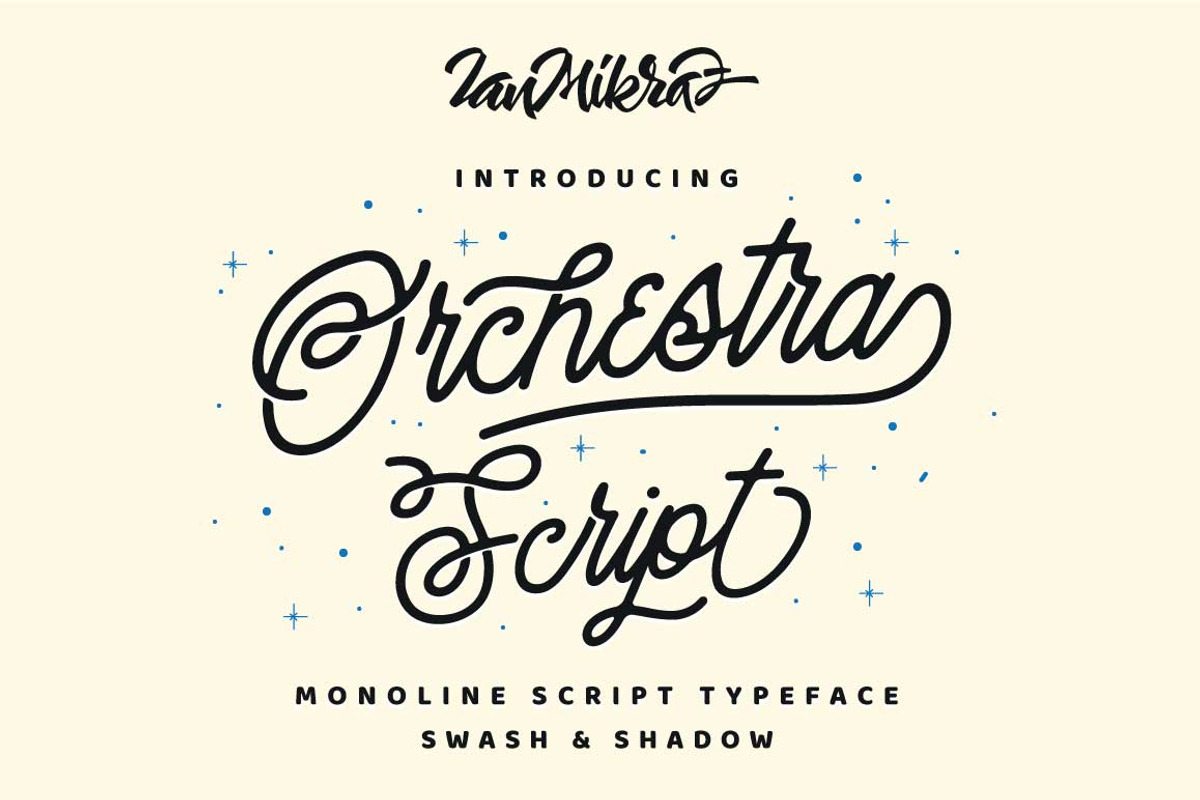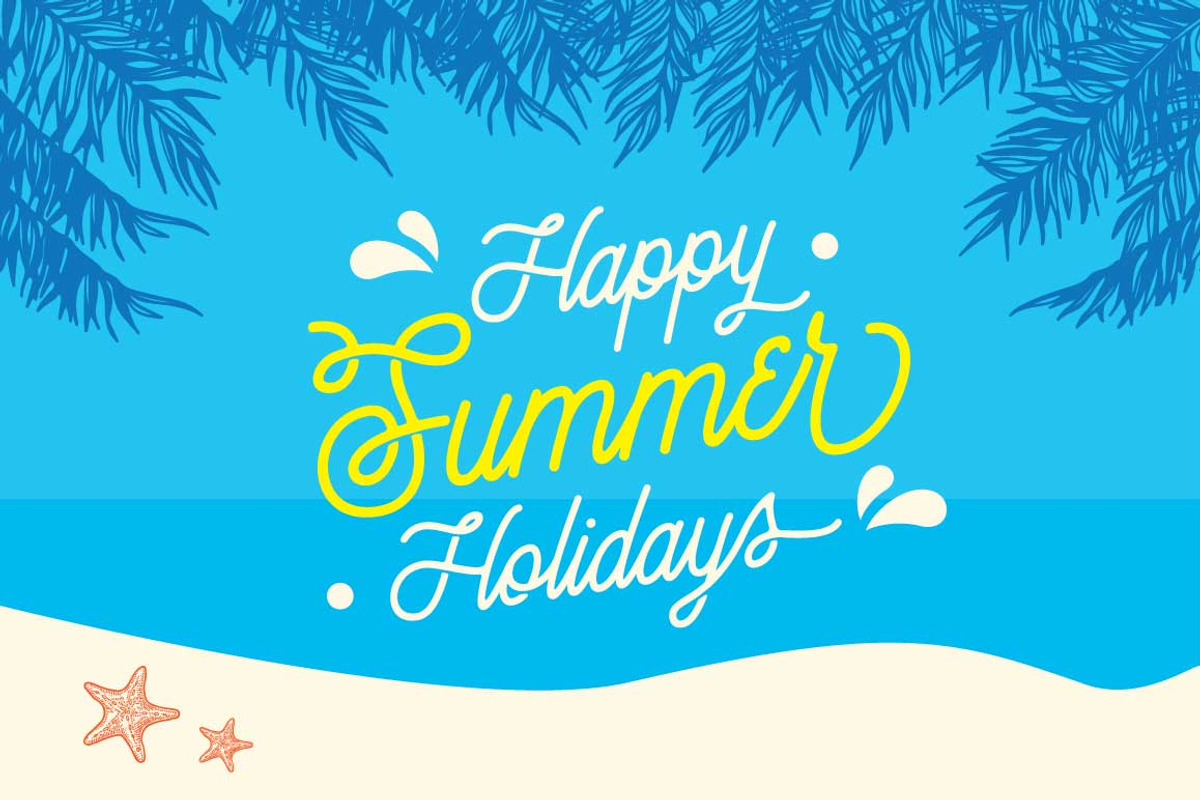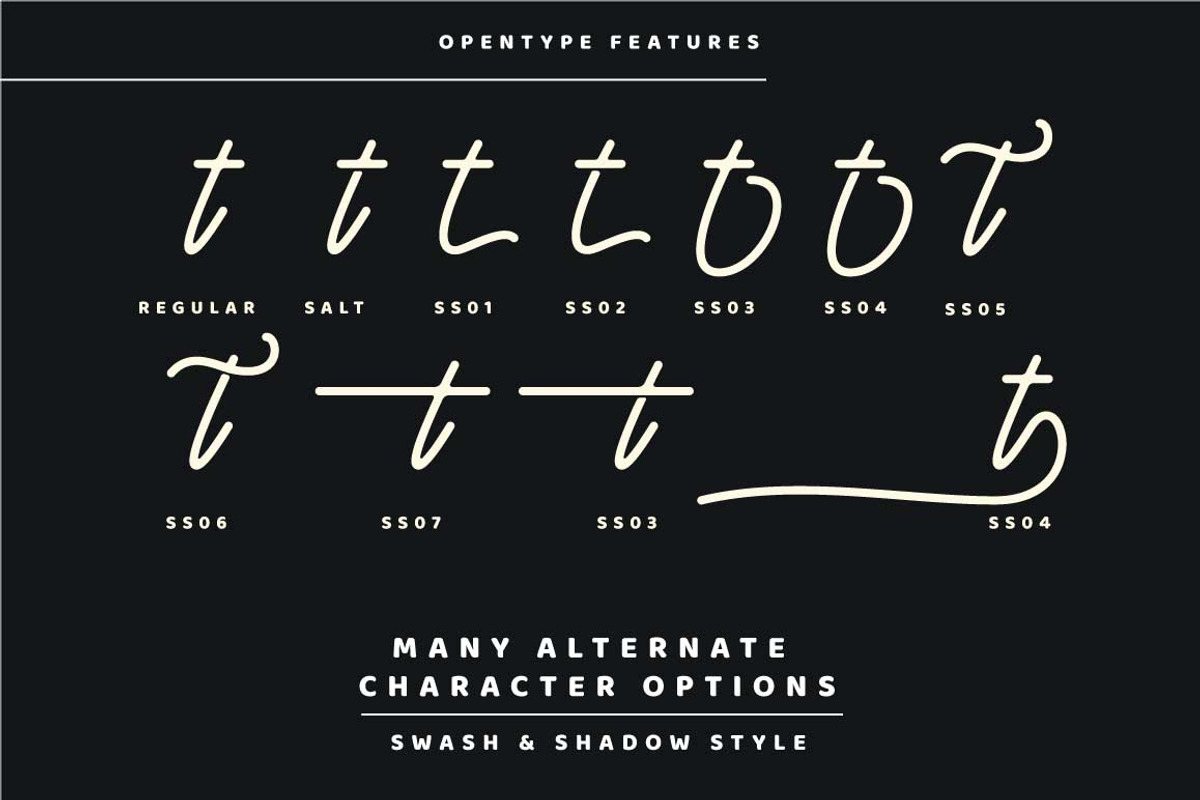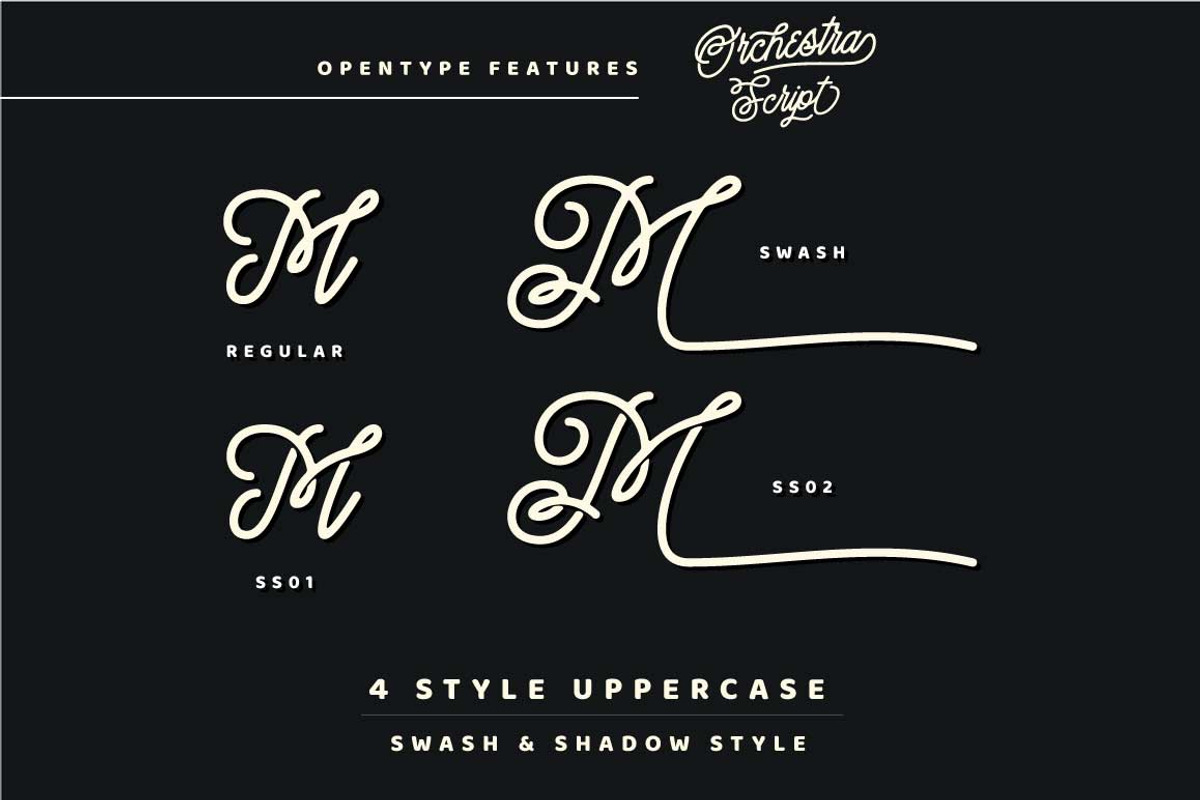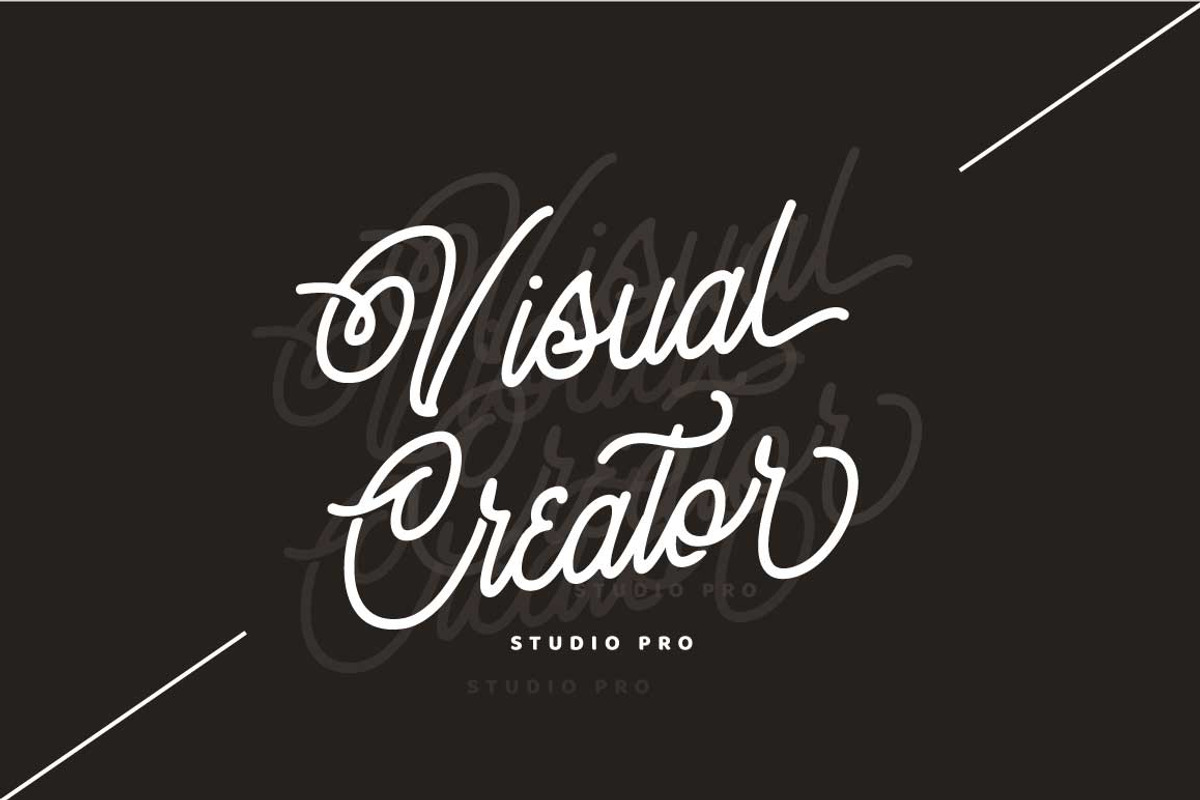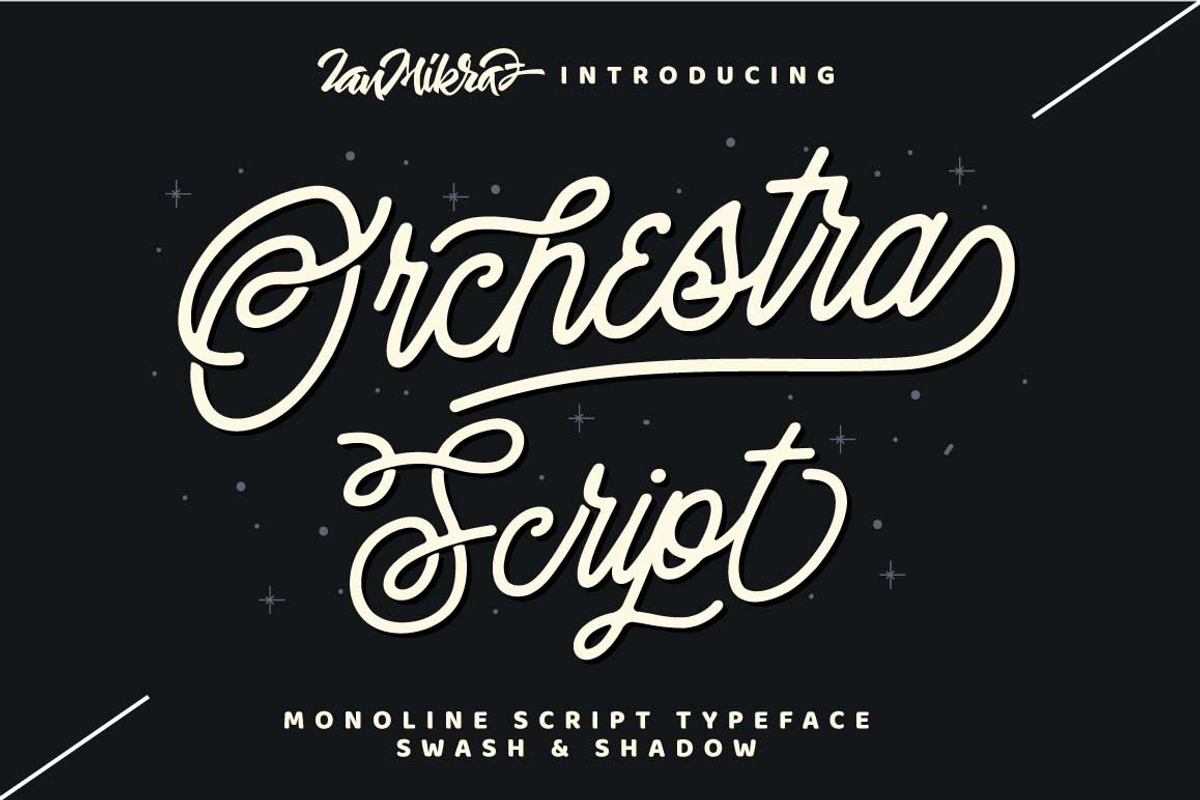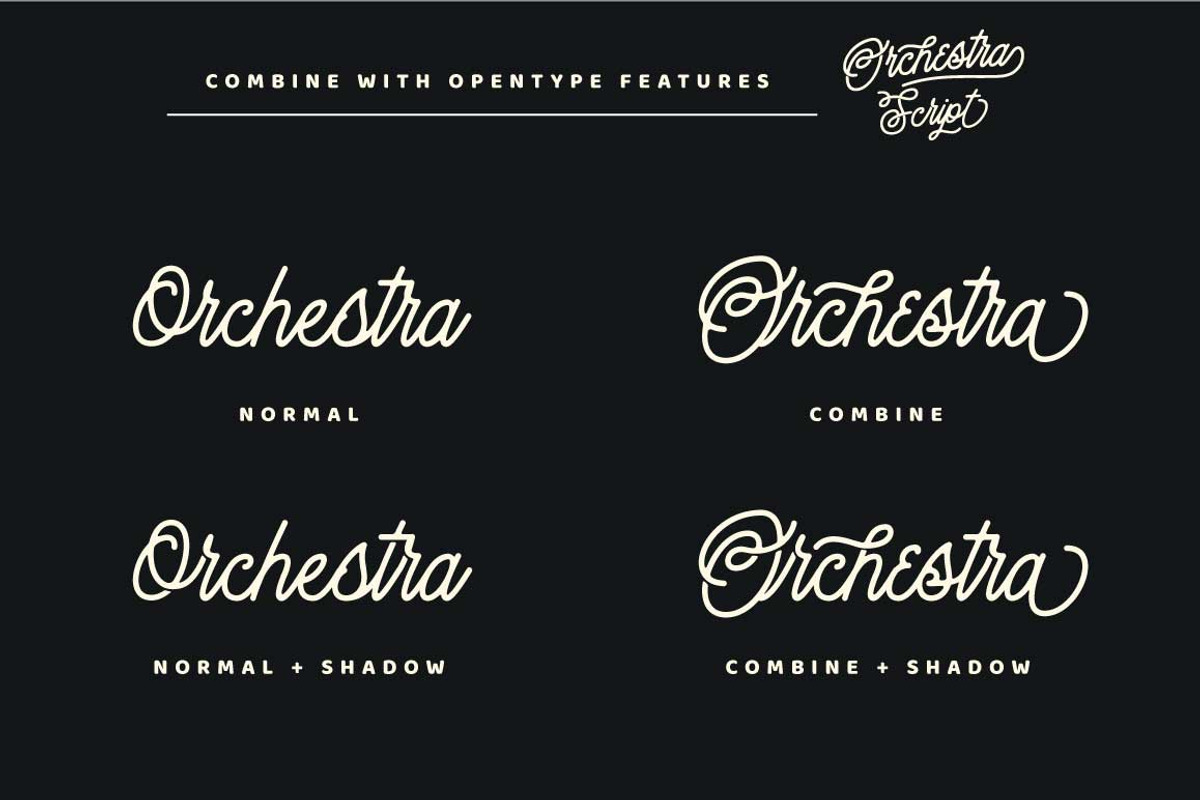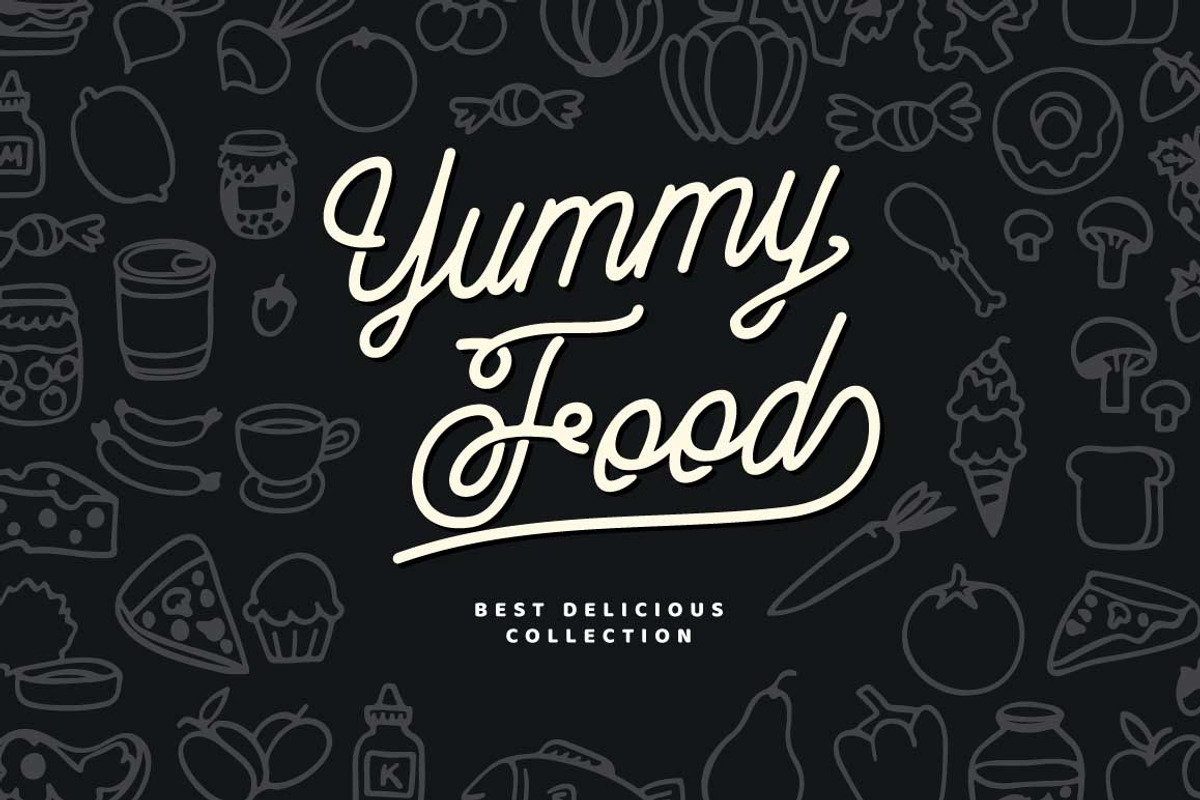
Orchestra Script - Monoline Typeface
Introducing Orchestra Script
Orchestra Script is a new Monoline Script Typeface Fonts collection from Ianmikraz studio, combines from copperplate to contemporary typeface, classic, beauty and Natural touch.
Orchestra Script features 431 glyphs and 249 alternate character contain with opentype features. Stylistic Alternates, Swash and more.You can access all those alternate characters by using OpenType savvy programs such as Adobe Illustrator, Adobe InDesign and CorelDraw X6-X7.
Orchestra Script is suitable for Apparel Brand, any greeting cards, Painting design style, or any design that needs natural and personal touch. Mix and match the alternate characters to add an attractive message to your design.
- Features of Orchestra Script is; Swash Uppercase Stylistic Alternates Stylistic Set 1 Stylistic Set 2 Stylistic Set 3 Stylistic Set 4 Stylis